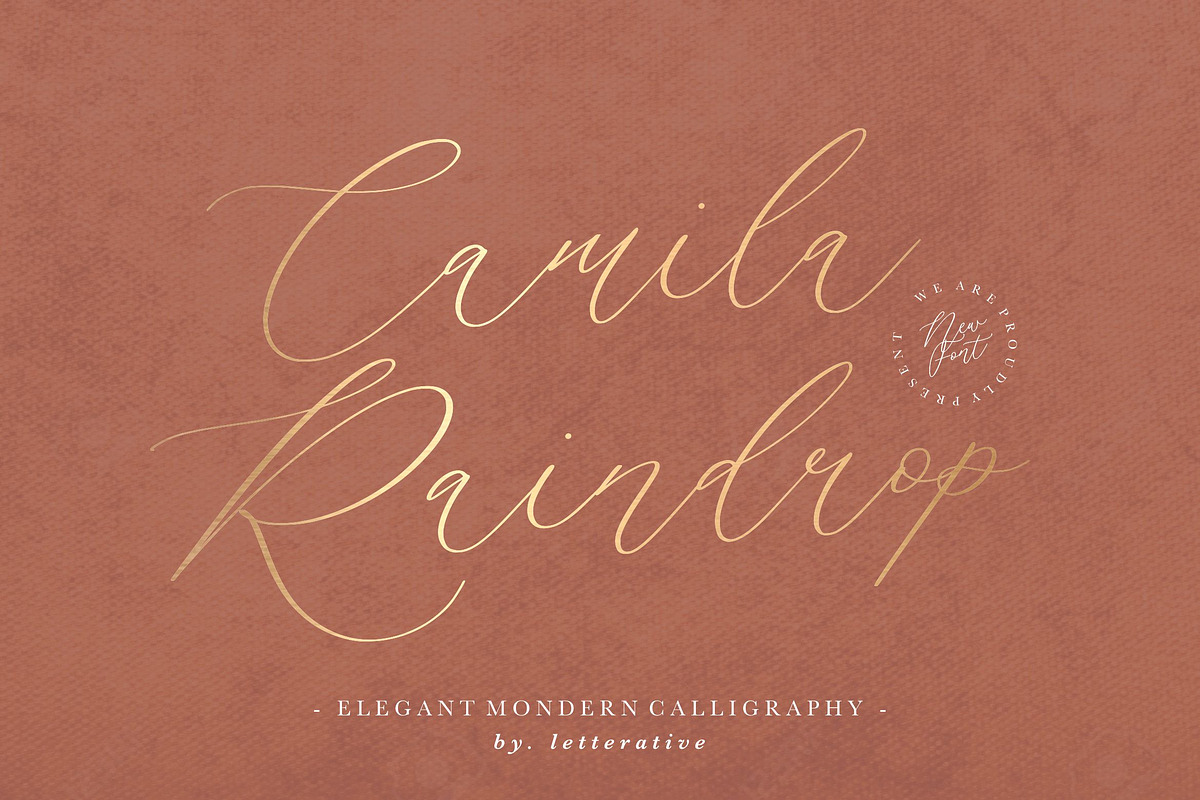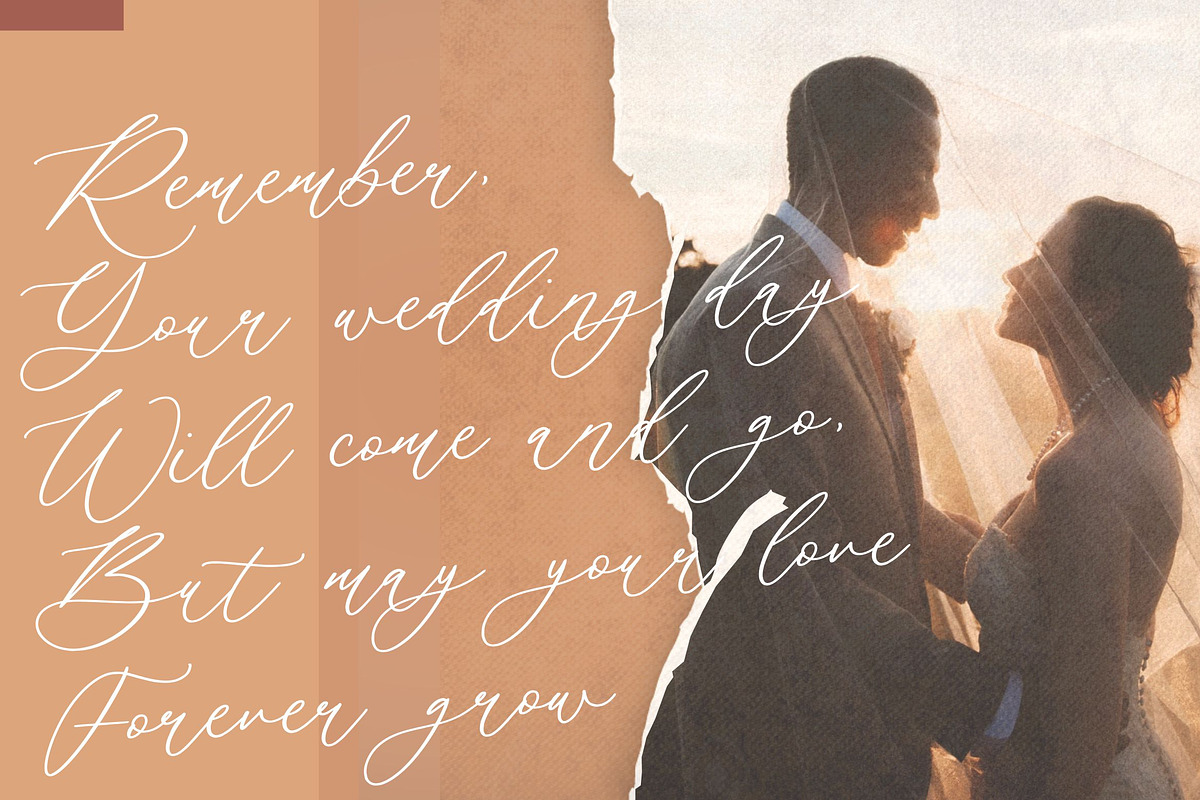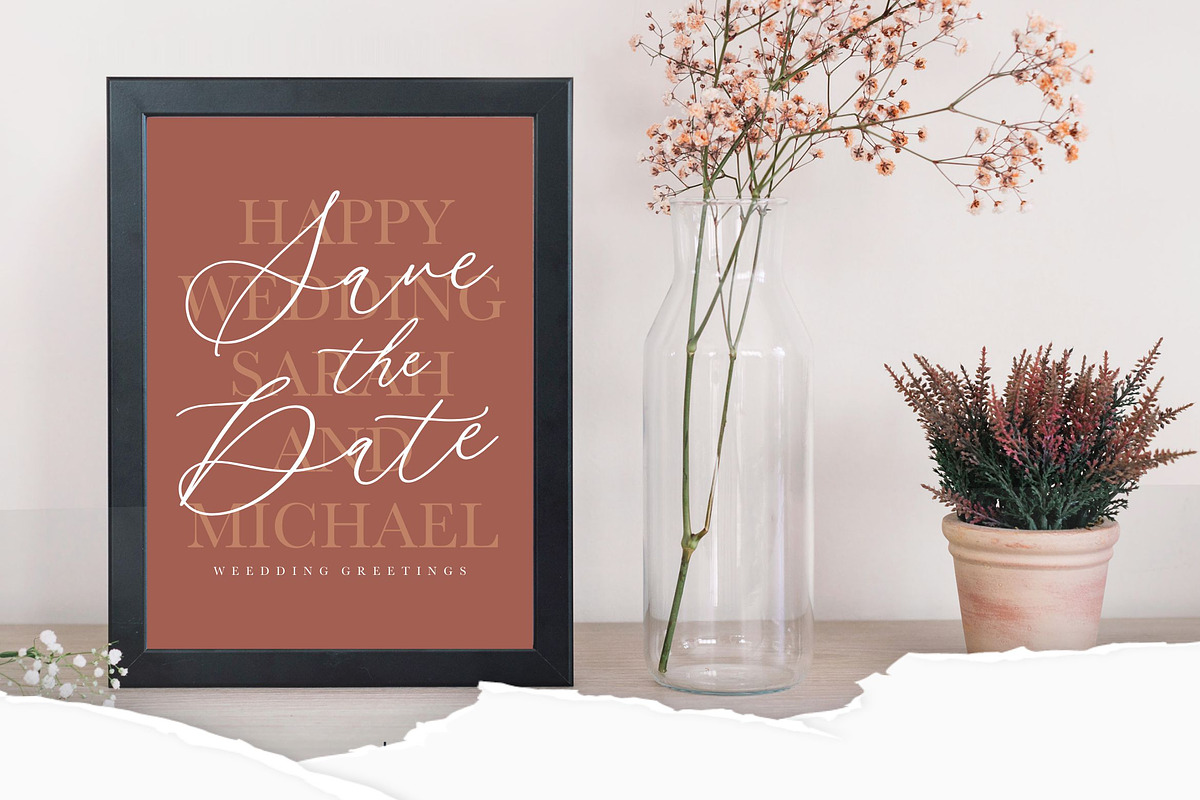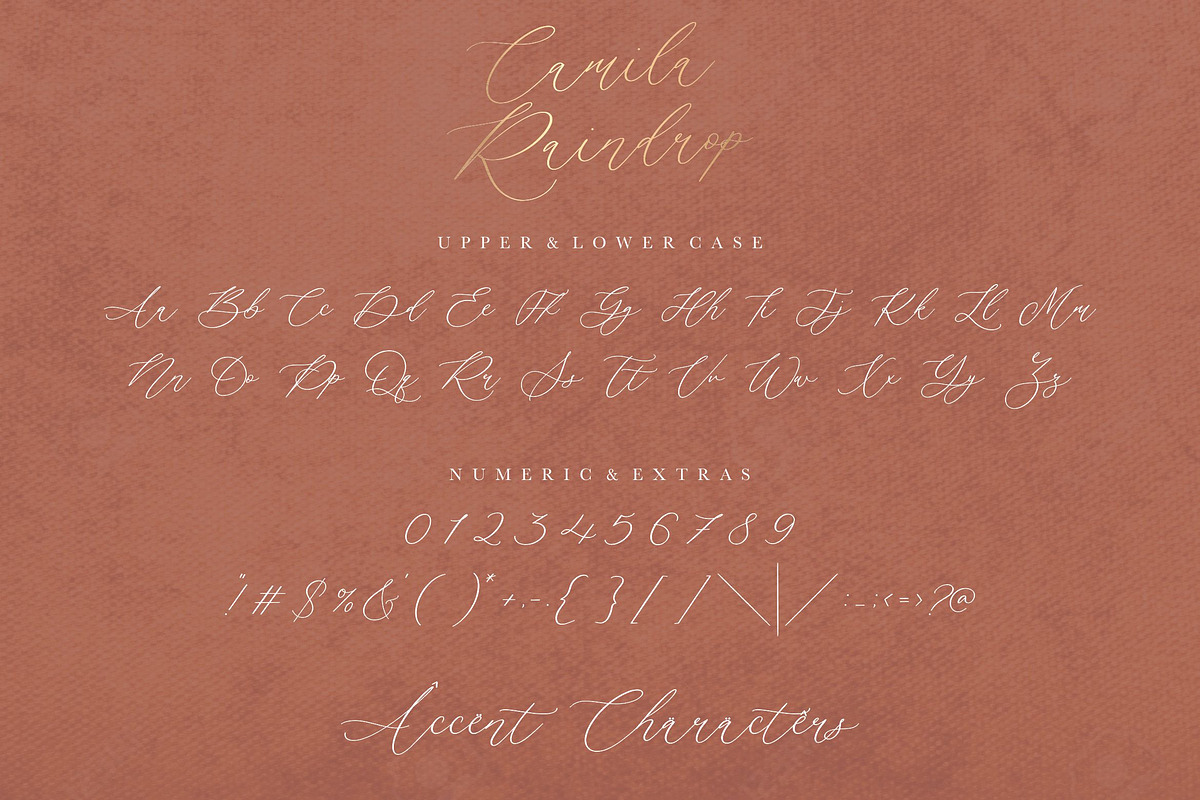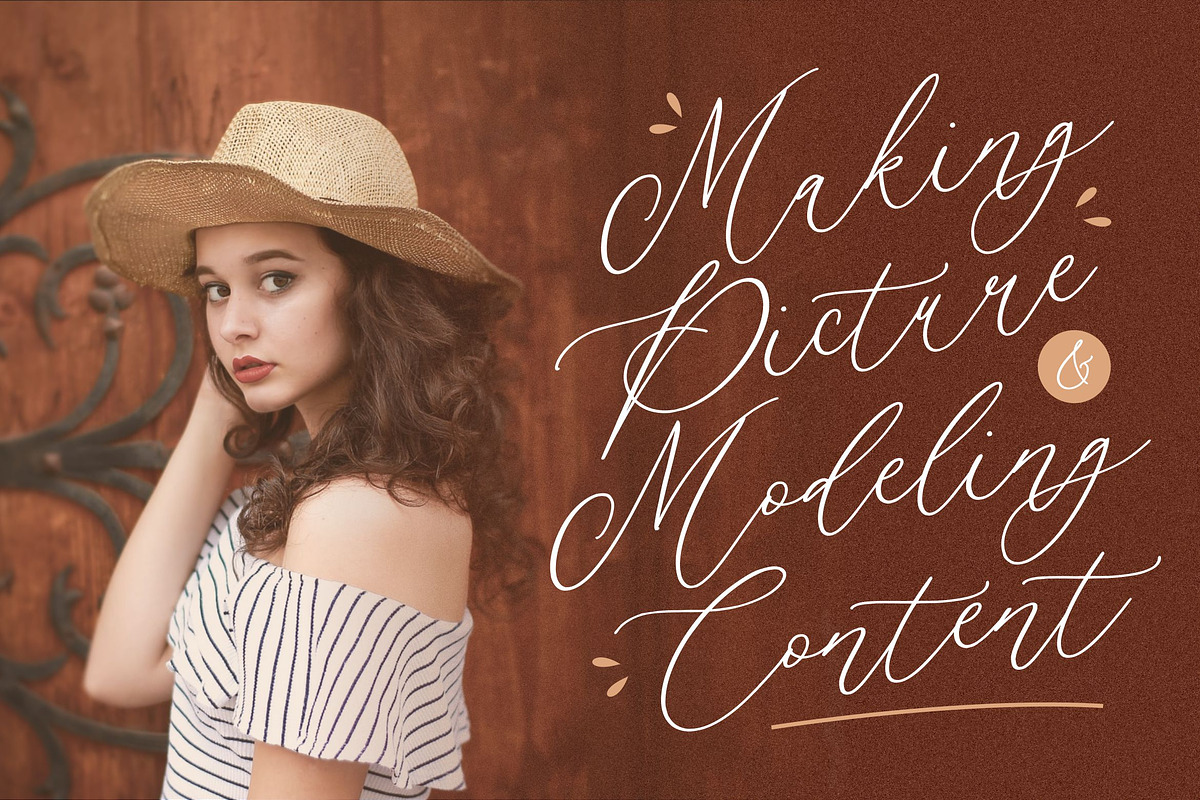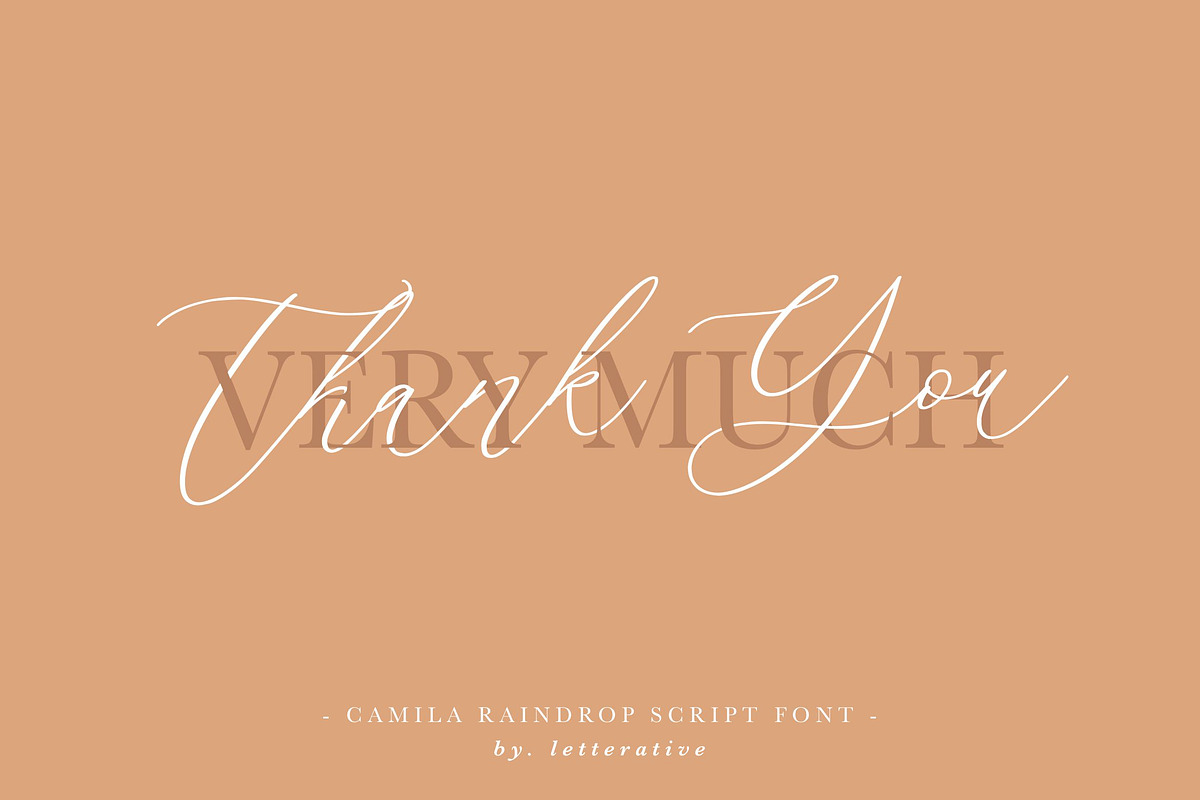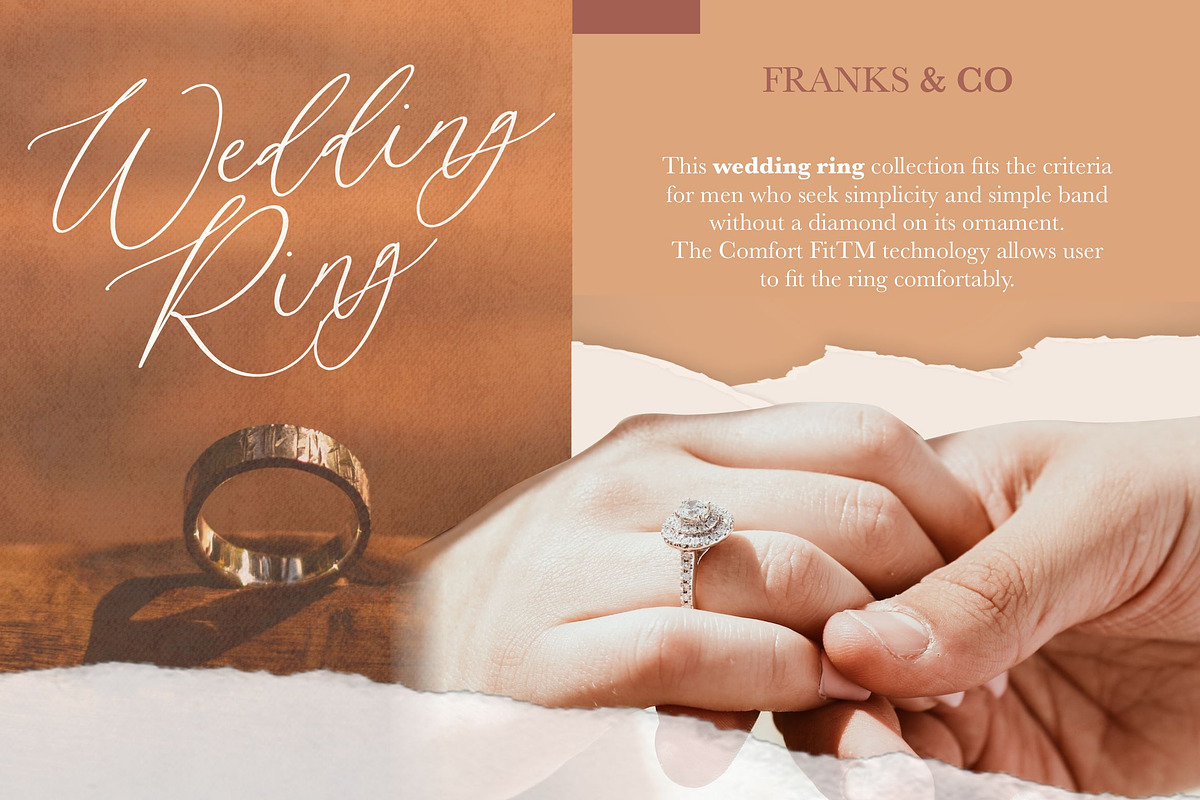
Camila Raindrop - Elegant Font
Introducing by Letterative Studio
Camila Raindrop is a Elegant Modern Calligraphy Font
Camila Raindrop is a unique and elegant handwritten font. Add this font to your creative ideas and notice how it will make them stand out!